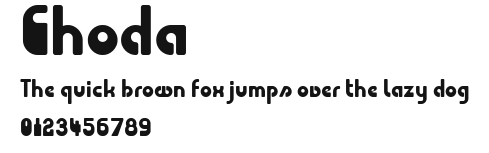
• Font Name: Choda
• Full Font Name: Choda
• Designer: Graham Meade & Apostrophe
About Choda.ttf
Choda.ttf is a modern, elegant sans-serif font designed for ultimate readability and visual harmony. Perfect for branding, headlines, web design, and print materials.